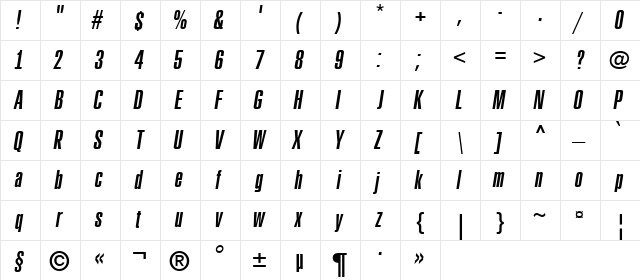
a_RubricaXtCn Italic
Design Context for a_RubricaXtCn Typeface
a_RubricaXtCn offers clean, dependable letterforms without strong stylistic allegiance, making it a practical choice for designers who need flexibility. Its italic angle brings a sense of urgency and motion to the letterforms.
Pro Tip: Try a_RubricaXtCn for annotation and caption copy alongside an upright companion — the contrast in angle creates a dynamic but ordered typographic system.